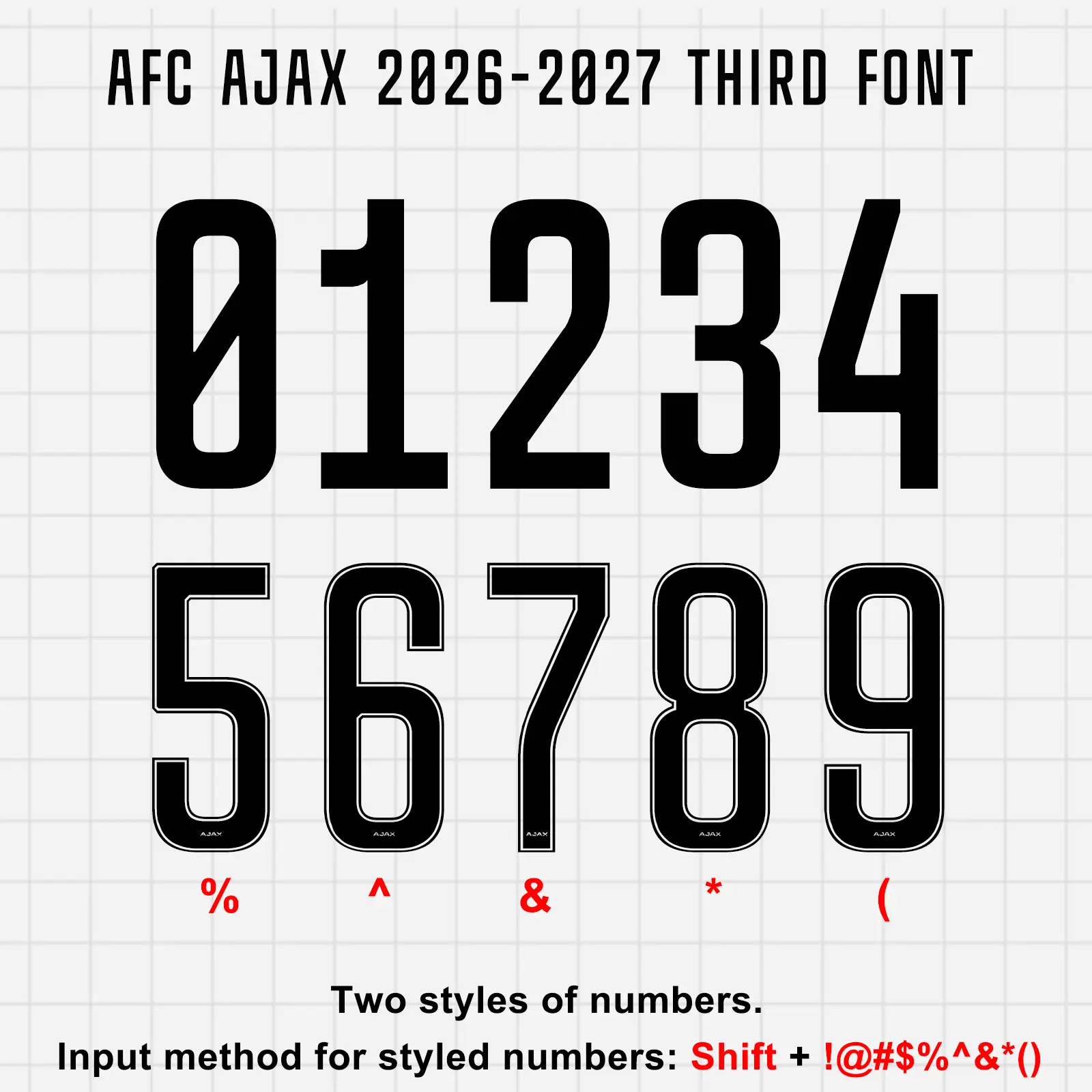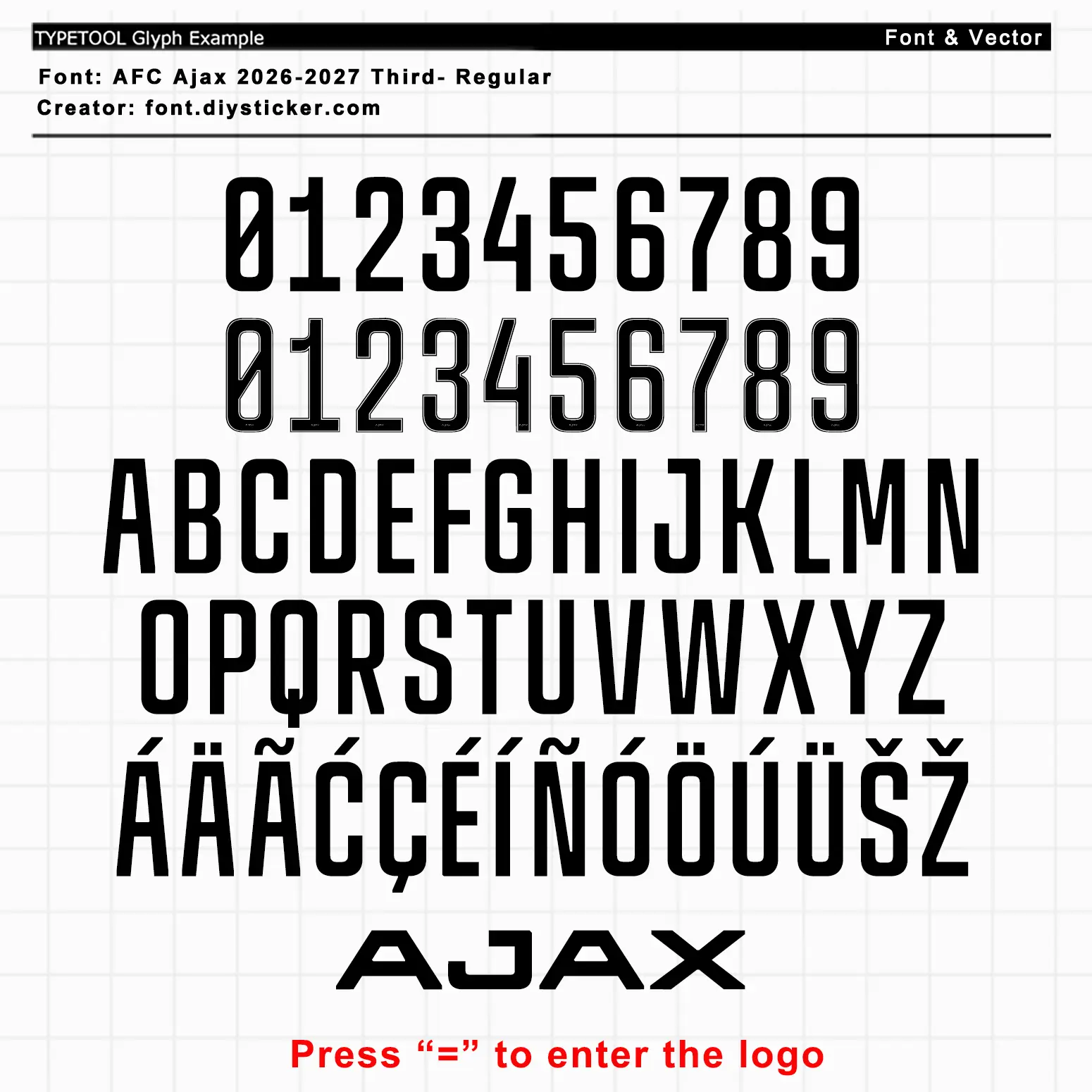
Get the exact replica of the **AFC Ajax 2026-2027 Third Kit font** for all your custom football jersey projects. This professional font package includes both installable font files and fully editable vector files, so you can create authentic Ajax-style prints for personal or commercial use.
##Key Features of This Ajax 2026-2027 Third Kit Font:
– Full uppercase A-Z alphabet, accented characters (Á, Ä, Ç, Ñ, Ö, Ü, Š, Ž, etc.), and numbers 0-9
– Two number styles available: solid fill and outlined (with subtle Ajax branding details)
– Includes the official “AJAX” logo glyph (accessible via the “=” key in the font)
– Matches the typography used for Norway 2026 national team custom jersey prints, Ajax third kit replica shirts, and fan-made merchandise
– Customizing AFC Ajax 2026-2027 third, home, or away jerseys with player names and numbers
– Designing Norway 2026 football shirts, training tops, and fan apparel
– Creating posters, social media graphics, and matchday content with authentic Ajax branding
All files are high-quality, scalable, and ready to use. Whether you’re a hobbyist making your own replica shirt or a professional designer, this Ajax 2026-2027 third kit font gives you the exact look of the official kit typography.
The typography matches the style of the official AFC Ajax 2026-2027 third kit